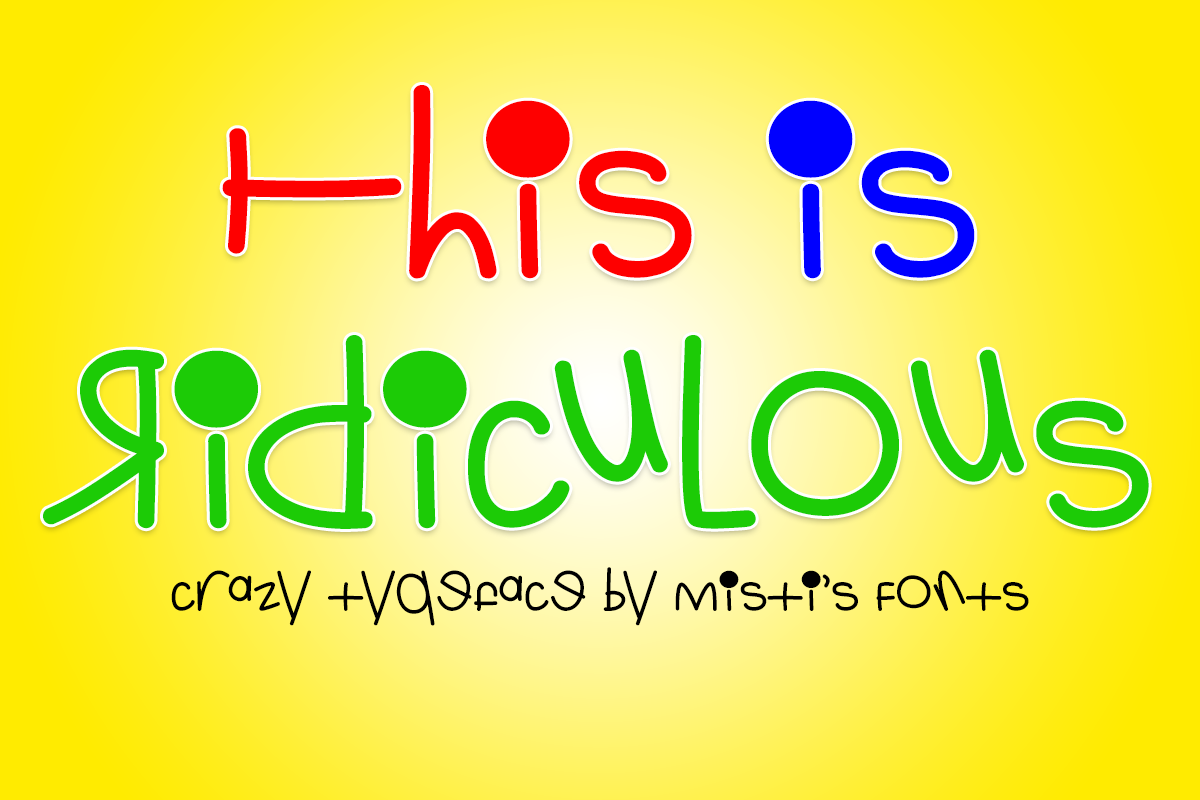
This Is Ridiculous
This Is Ridiculous is a whacky typeface created in 2013. It certainly breaks the rules of traditional type design and is perfect for unconventional projects that don't require legibility to make a statement.